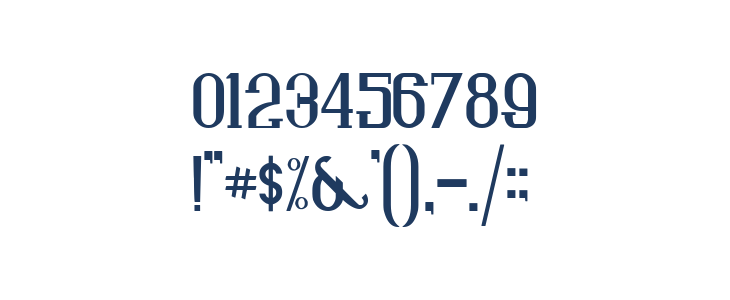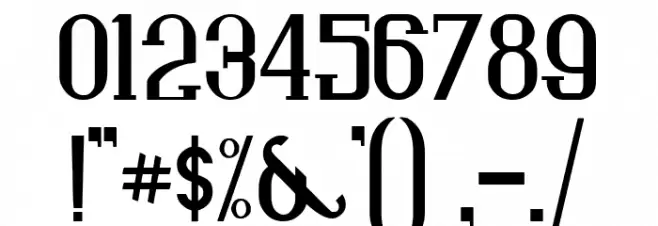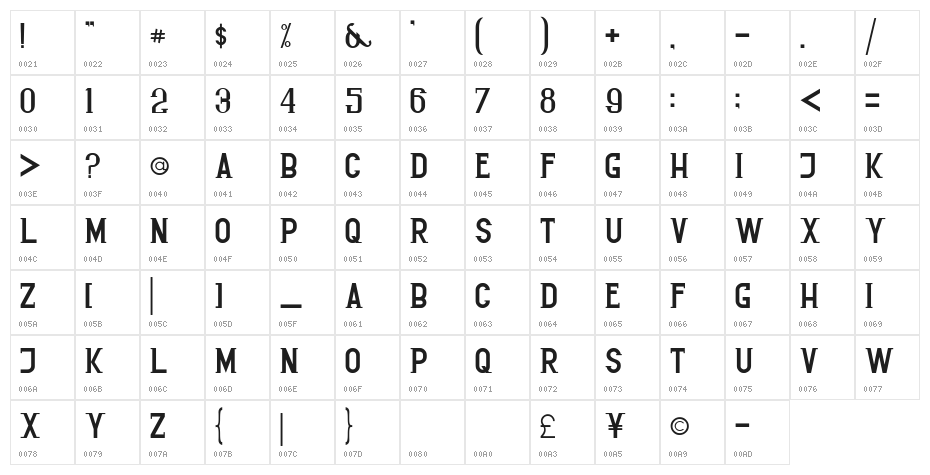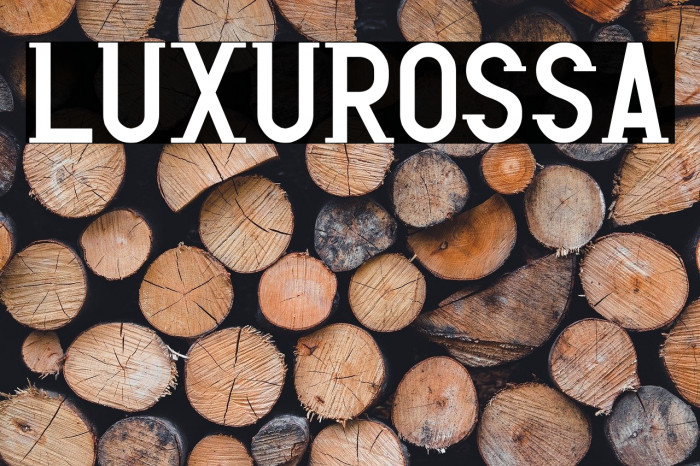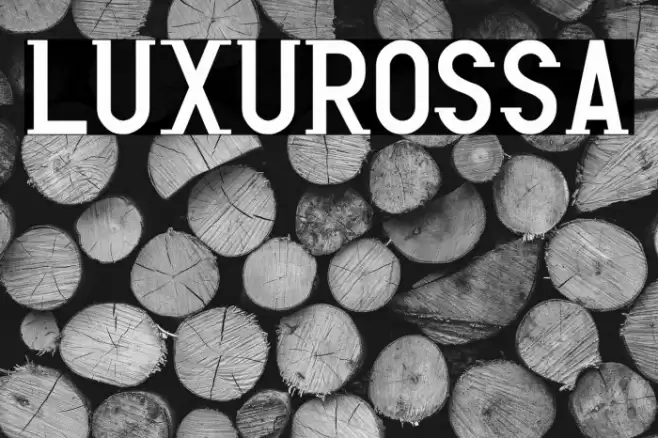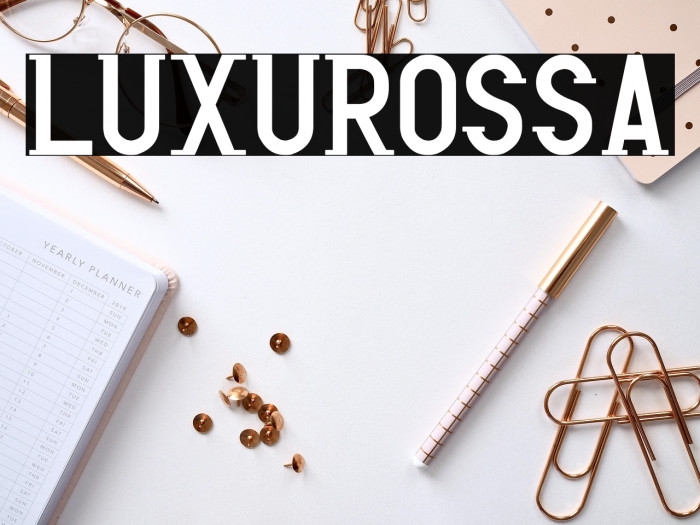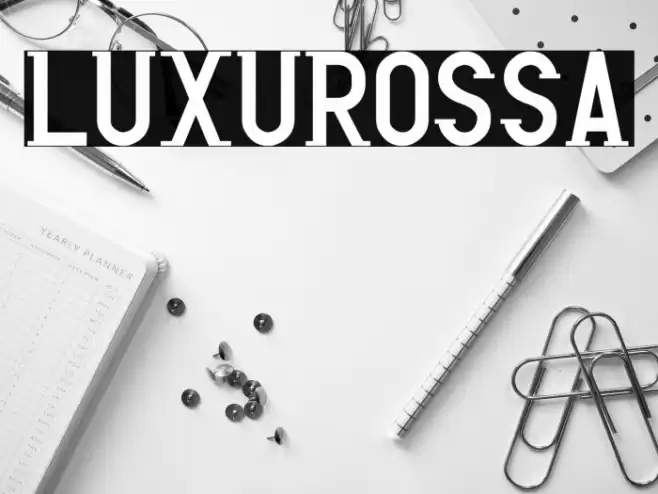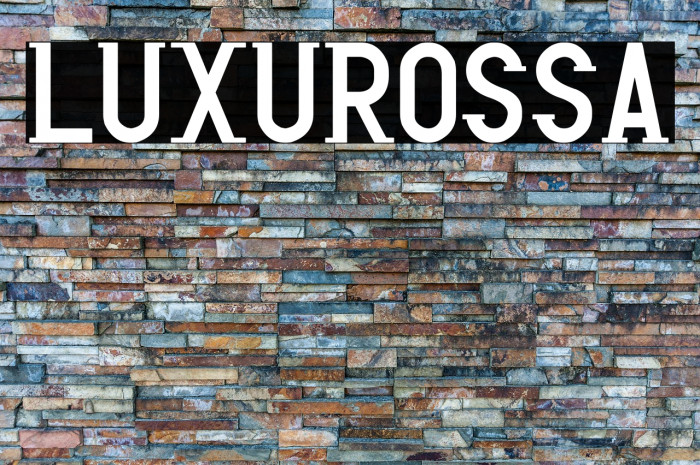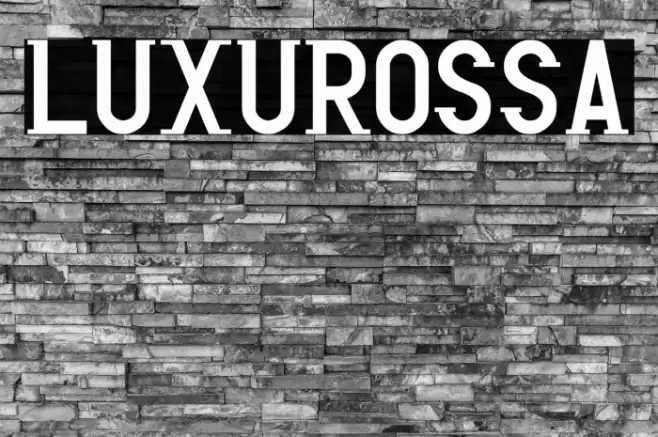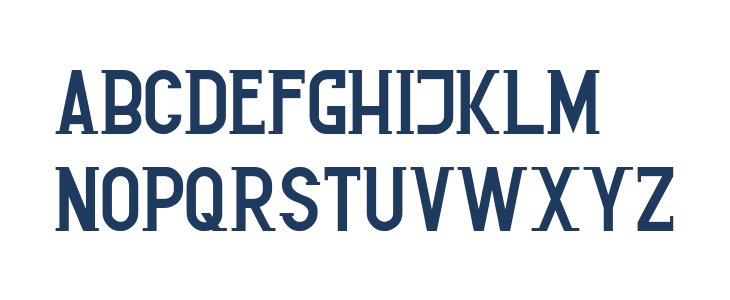
Luxurossa Font
Luxurossa Description
This font features a bold and striking design with a modern twist. The uppercase letters are tall and slightly condensed, giving a strong presence. The lowercase letters maintain a consistent height, complementing the uppercase with a balanced look. The numbers are distinct and clear, with a uniform width that enhances readability. Special characters are designed with a unique flair, adding a touch of creativity. The overall style is modern and versatile, making it suitable for various design projects. The font's clean lines and sharp edges contribute to its contemporary appeal.
| Proposed Projects | Ideal for branding, advertising, headlines, and digital media projects. |